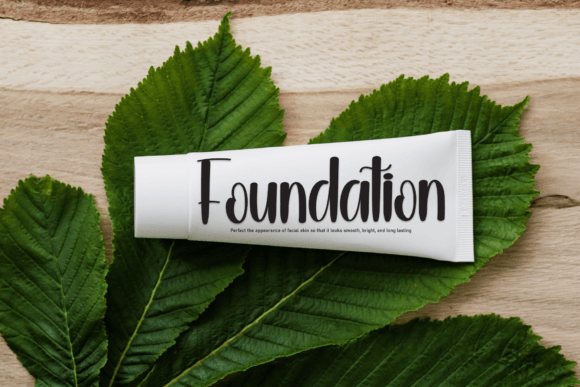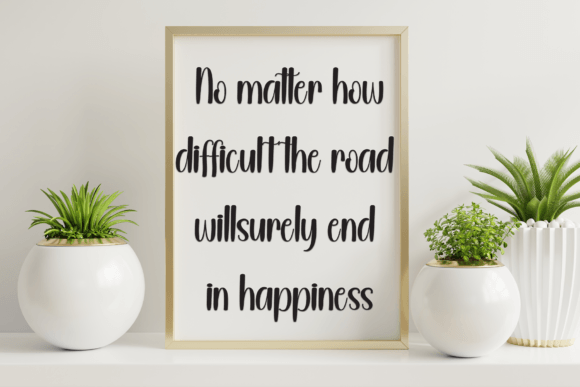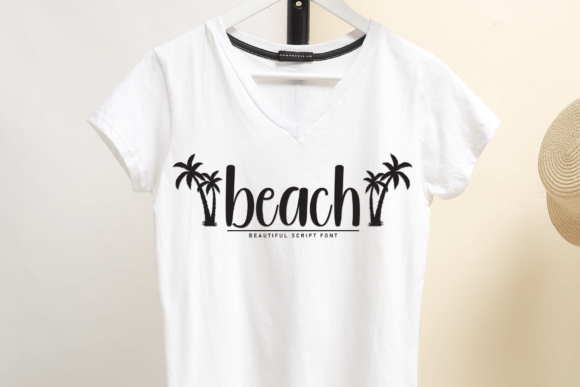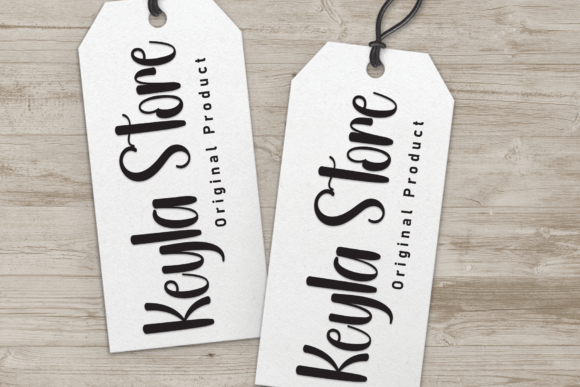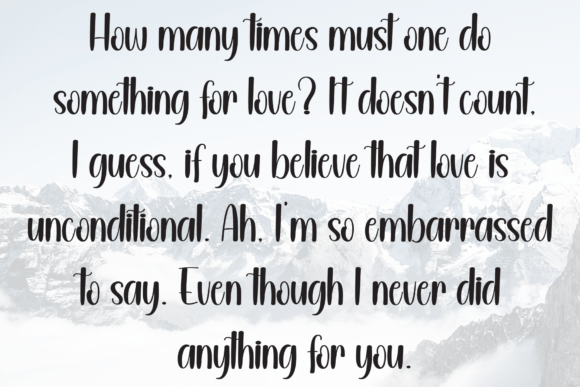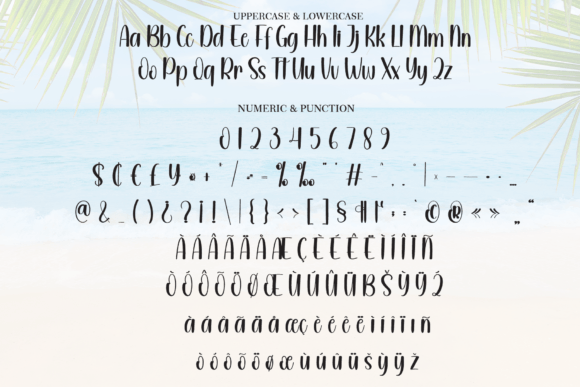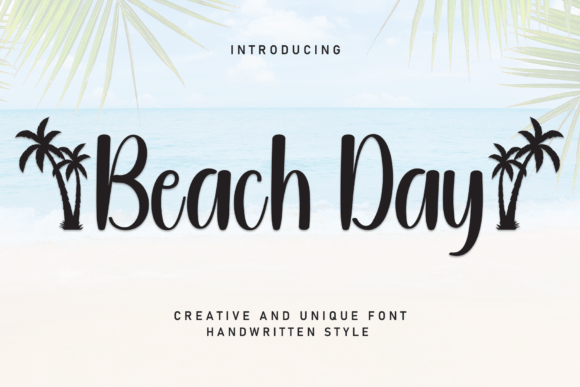
Introducing Beach Day Font: The Perfect Addition to Your Design Arsenal
Are you tired of using the same old fonts in your designs? Do you want to add a touch of whimsy and fun to your projects? Look no further than Beach Day Font, a sweet and friendly handwritten display font that’s perfect for a variety of design applications. In this article, we’ll take a closer look at Beach Day Font, its features, and how you can use it to elevate your designs.
What is Beach Day Font?
Beach Day Font is a beautiful, handwritten display font that’s designed to bring a sense of fun and playfulness to your designs. With its cute and charming lettering style, this font is ideal for creating eye-catching headings, titles, and text that will capture the attention of your audience. Whether you’re designing wedding invitations, greeting cards, or social media graphics, Beach Day Font is the perfect choice.
Key Features of Beach Day Font
So, what makes Beach Day Font so special? Here are some of its key features:
• Handwritten style: Beach Day Font has a beautiful, handwritten style that’s perfect for creating unique and personalized designs.
• Cute and fun: This font is designed to be fun and playful, making it perfect for designs that require a lighthearted touch.
• Display font: Beach Day Font is a display font, which means it’s designed to be used at larger sizes, making it perfect for headings and titles.
• Easy to read: Despite its playful style, Beach Day Font is easy to read, making it perfect for designs that require a clear and concise message.
Use Cases for Beach Day Font
So, how can you use Beach Day Font in your designs? Here are some use cases to get you started:
• Wedding invitations: Beach Day Font is perfect for creating beautiful and unique wedding invitations that will set the tone for the big day.
• Greeting cards: This font is also great for creating greeting cards for special occasions, such as birthdays, holidays, and anniversaries.
• Social media graphics: Beach Day Font can be used to create eye-catching social media graphics that will help you stand out from the crowd.
• Branding and packaging: This font can also be used for branding and packaging design, adding a touch of personality to your products.
Tips for Using Beach Day Font
Here are some tips for using Beach Day Font in your designs:
• Use it sparingly: Beach Day Font is a display font, so it’s best to use it sparingly to create emphasis and visual interest.
• Pair it with a simple font: Pair Beach Day Font with a simple font to create contrast and make your design more readable.
• Experiment with colors: Beach Day Font looks great in a variety of colors, so don’t be afraid to experiment and find the perfect color scheme for your design.
In conclusion, Beach Day Font is a beautiful and versatile font that’s perfect for designers and crafters who want to add a touch of fun and whimsy to their designs. With its handwritten style, cute and playful vibe, and ease of use, this font is sure to become a favorite in your design arsenal. So why not give it a try and see how Beach Day Font can elevate your designs?
Whether you’re a seasoned designer or a crafty DIY enthusiast, Beach Day Font is a great addition to your toolkit. So go ahead, get creative, and have fun with Beach Day Font!